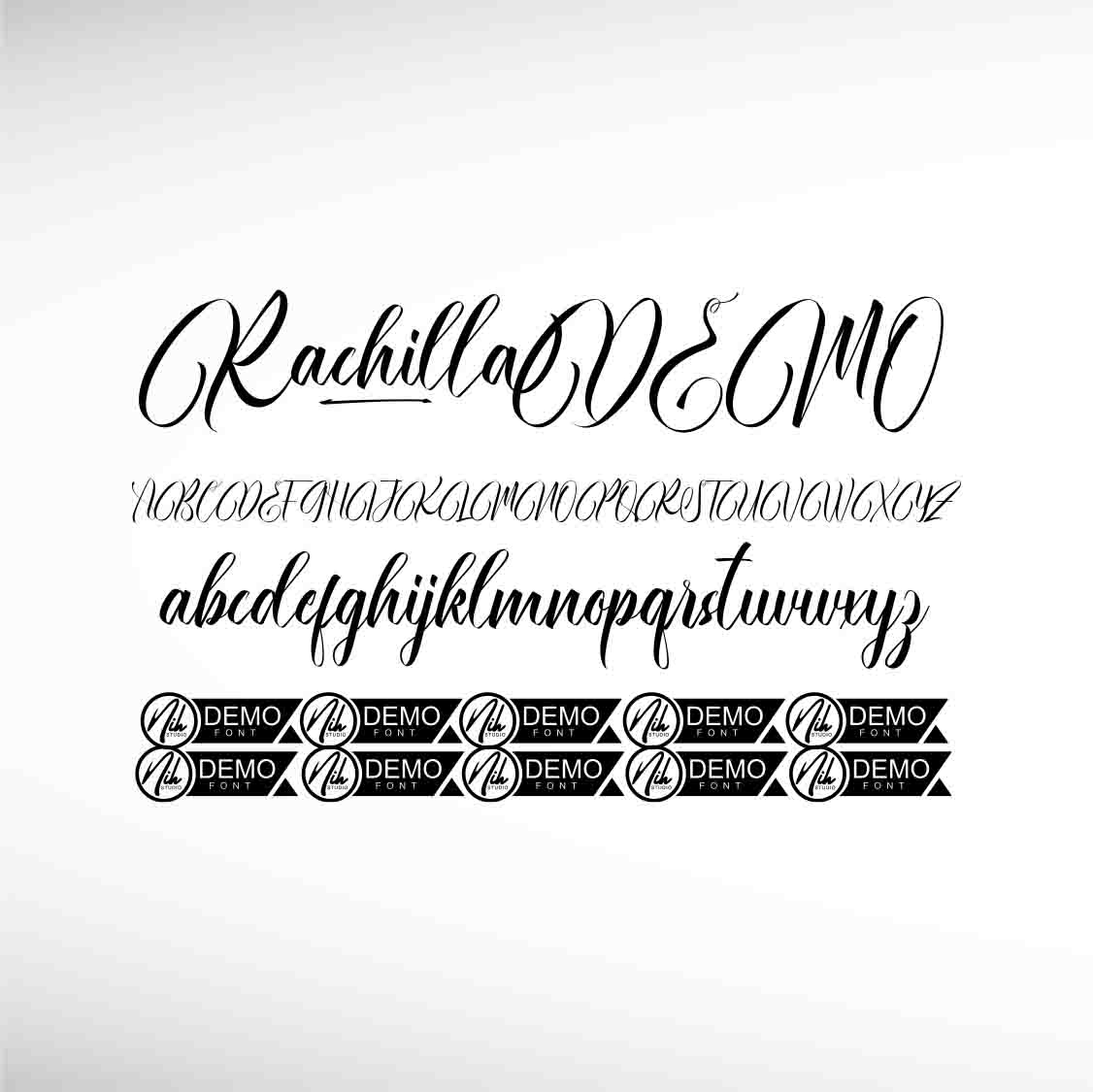
Rachilla Demo Font Free Download
Rachilla Demo by Miftaharzaq. Rachilla Demo is the perfect font for all your fun designs. The font subfamily is Regular.